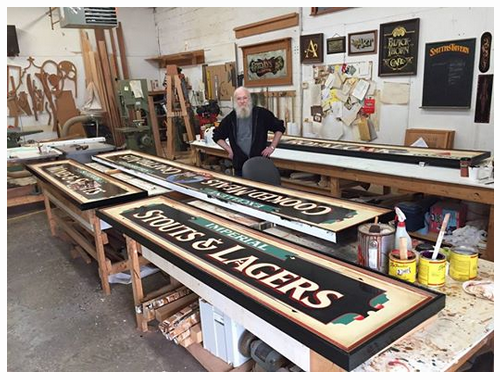
Doug Bernhardt_Retired?!
Received a note from Doug recently, with a photo of Doug's last commercial sign, and a short note of his business:
Other than the accolades and that it's actually been 45 years, it is accurate. Time to say bye to sign arts and onto other things... whatever that might be 😳
Signwriting, Wood Carving & Gold Leaf
A Historical moment in Ottawa. This is a photo of master sign maker/carver/art glass/artist Doug Bernhardt of Ottawa with his last commercial sign job. Doug has been in the business for 50 years. People from around the globe recognize Doug Bernhardt as an industry leader. An active member of the "Letterheads", Doug has traveled extensively in Europe to find inspiration for his artistic work.
I am humbled to call Doug a dear friend. I am happy to see him reach retirement in good health, and sad to say I can't drop in to Bernhardt Signs to hear him yell out Mr. Ed, whats going on?
A fine friend, a warm human being, and an incredible artist. If you have seen any great signs above your favorite pub in Ottawa, or Toronto, or elsewhere, Doug probably designed it by hand, NO computers, and made it the old fashioned way, with a hammer and chisel.
His chipped glass signs are spectacular - there is one I can think of in the Royal Oak on Wellington. Chipped glass, etching, gilding, and painted on the reverse side, amazing!
The end of an era, the fine woodworker crossed with the artist that can paint your portrait on the same sign that he has carved, and gilded with gold.
I'd like to think this is April 1st and this is an April Fool's Joke!
Maybe Doug will now have more time and will fill this Forum with photos of his work, tips, techniques, and so forth.
I have enjoyed seeing many of your projects here on the forum. Thank you for sharing and enjoy the good life.
Hey guys...not April fools joke. I'll still be around and an extra pair of hands when and if anyone needs them. I've been looking forward to spending more time at the other passions (oil painting and the like) but I've been an 8 days a week guy for a little too long. Promise to try and organize my photos and contribute here whenever I've got something worth it.
Your work has always been a Joy to view. You are a Jack of the Trade and a Master of many Arts.
Enjoy the new path to it's fullest.
Sure I paint thing for my amusement and then offer them for sale. A brushslinger could whither en die from lack of creativity in this plastic town my horse threw a shoe in. :shock:
I'm thrilled to have visited your shop Doug. What an inspirational place.
Top notch in every way. Inspiring on many levels.
"an extra pair of hands"... I hope there are folk in Ottawa who realize what a help you would be, and that helps you keep one toe in the water.
On the upside - this may give you more time to travel, and maybe we'll see you in the Pacific Northwest sometime.
Re: Doug Bernhardt_Retired?!
Post by Dale Johnson »
Hi Doug,
I have tried to retire but it just does not happen, unless you park your butt in a chair , watch TV and wait to die. I am not interested in that. If by chance you decide to travel come and visit me here in Ormond Beach, FL. We run the heat about 12 days a year and the rest of the time the Wx is perfect or a little too hot. I have a small paintshop and do not work very hard, but I love what I do.